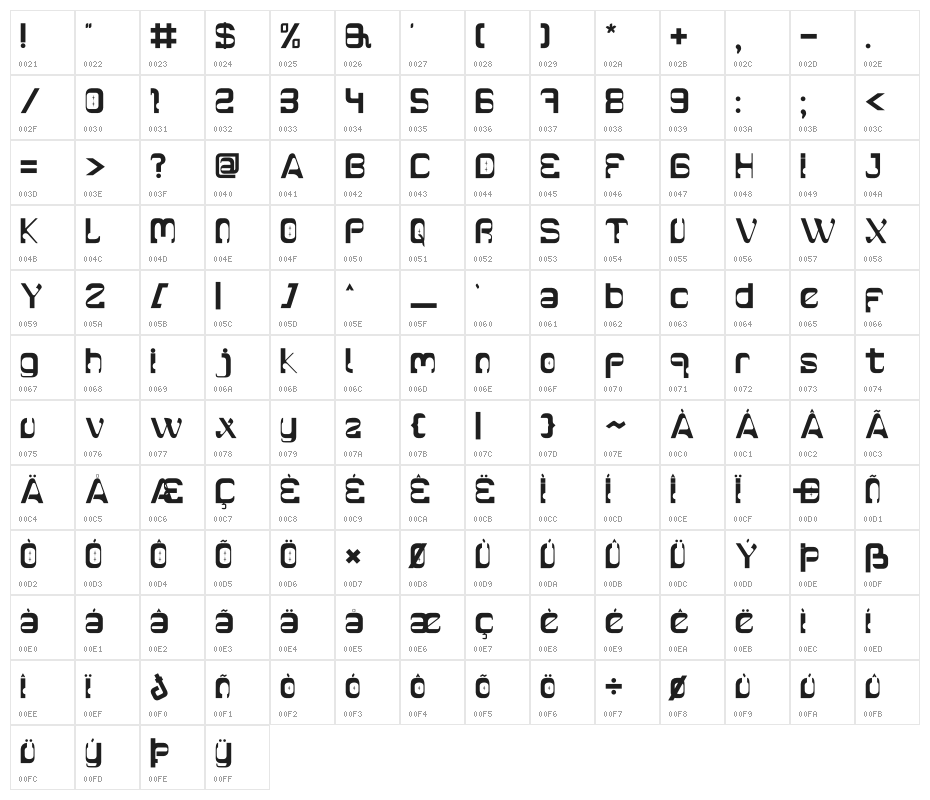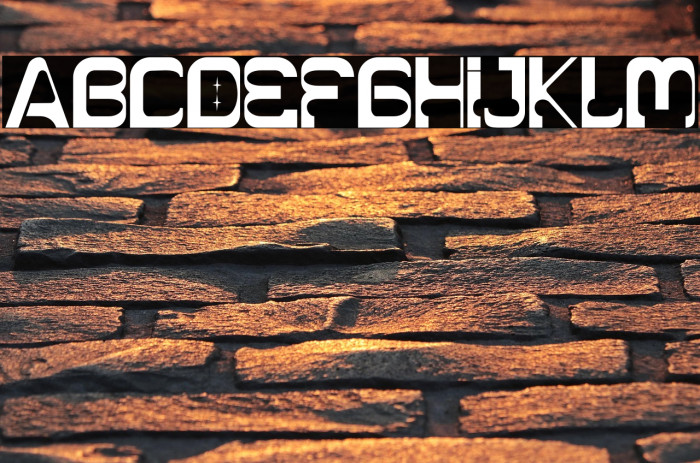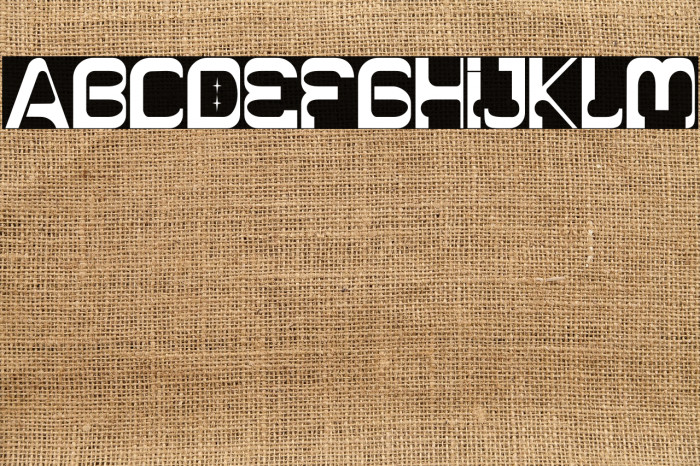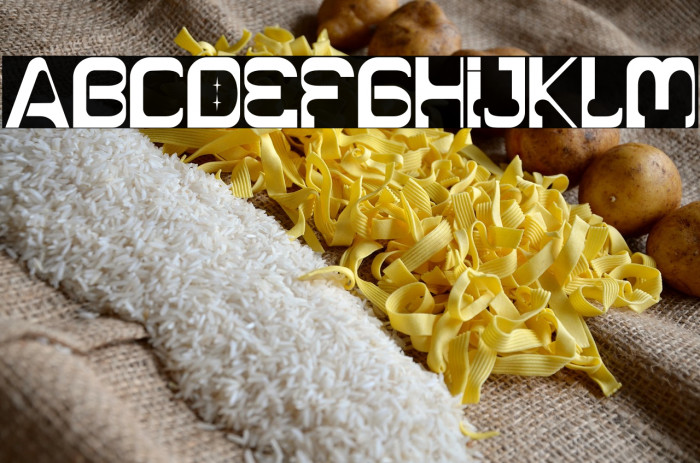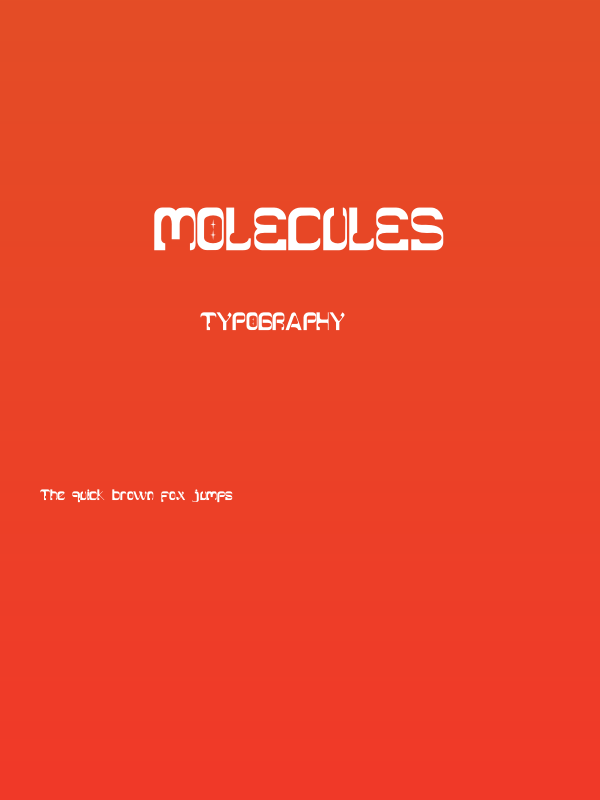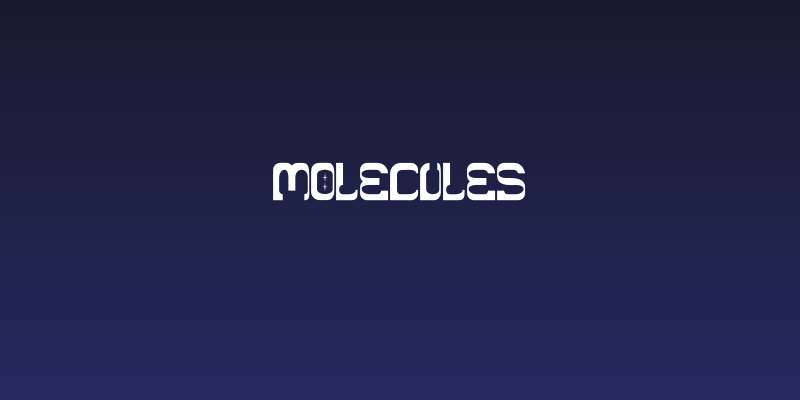
MOLECULES Font
MOLECULES Description
This font features a futuristic and geometric design, characterized by its bold and blocky letterforms. The characters are constructed with a mix of solid and hollow spaces, creating a unique visual rhythm. The inclusion of star-like symbols within some letters adds an ornamental touch, enhancing its decorative appeal. The font maintains a consistent weight throughout, providing a uniform appearance. Its distinct style makes it stand out, suitable for projects that require a modern and edgy look.
Proposed ProjectsIdeal for sci-fi themed designs, tech branding, video game titles, and futuristic posters.